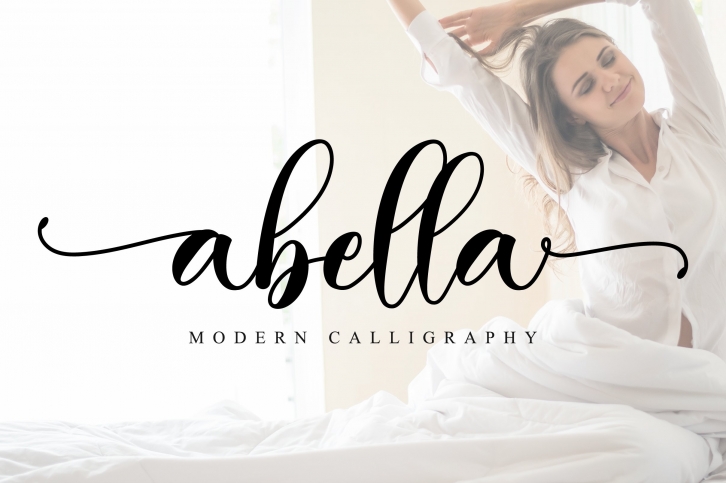
Abella is a beautiful and elegant script font. Its modern and classy look is perfect for logos, branding, invitations, social media posts and every other design that needs a handwritten touch.